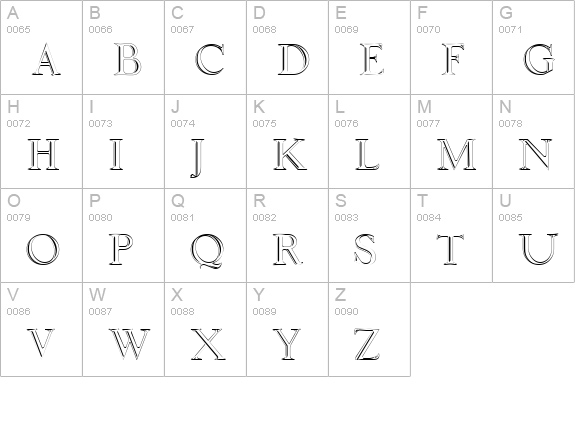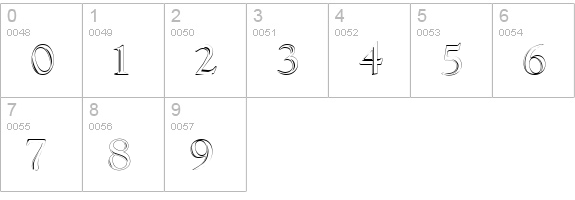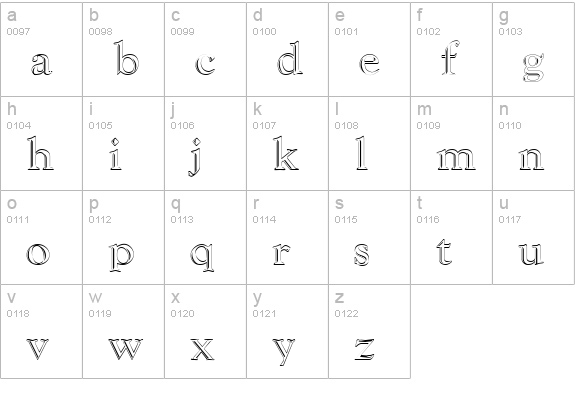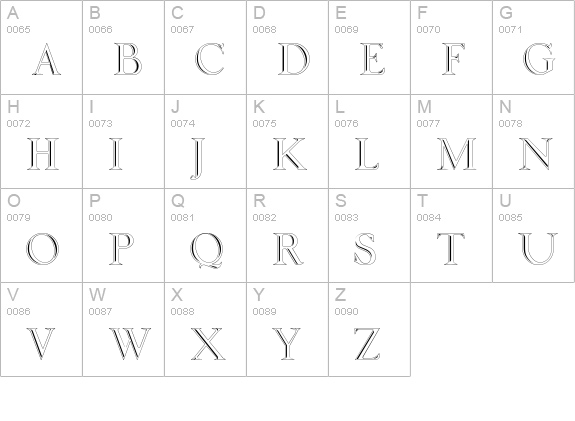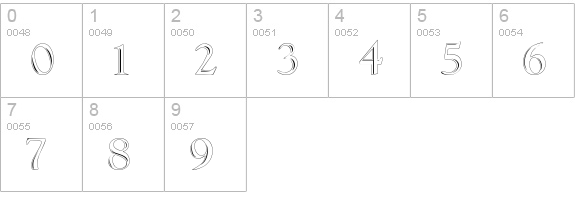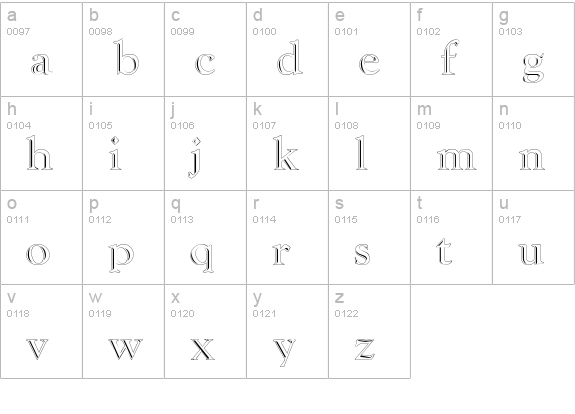
Liberty Regular is the standard, neutral variant in the Liberty typeface family \xE2\x80\x94 well suited to general body text, paragraphs, and standard typographic work.
Liberty Regular font embodies the essence of freedom and expresses a sense of openness and liberation in its design. Its clean lines and classic appeal make it a versatile choice for a wide range of projects, from branding to editorial design. With its timeless elegance and readability, Liberty Regular font effortlessly conveys a message of independence and creativity. This remarkable font is freely available for download at FontsMarket.com, allowing designers and creatives to easily access and utilize its unique qualities in their projects. Whether used for print or digital media, Liberty Regular font shines as a symbol of freedom and individuality, making it a valuable addition to any designer's toolkit. Embrace the spirit of freedom and creativity with Liberty Regular font today!